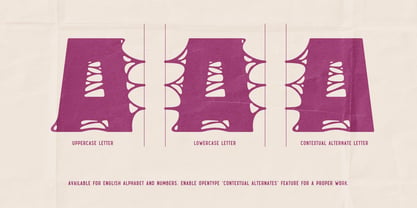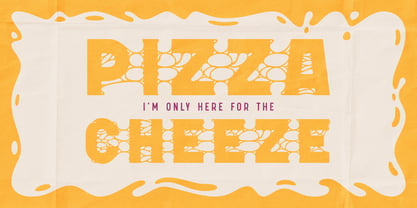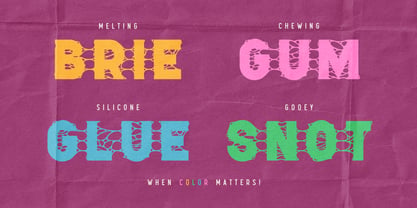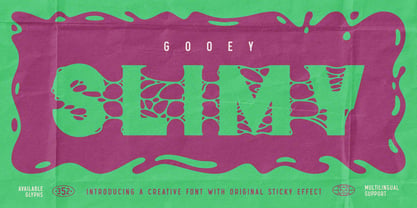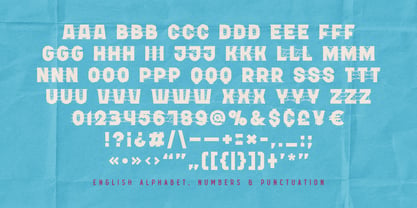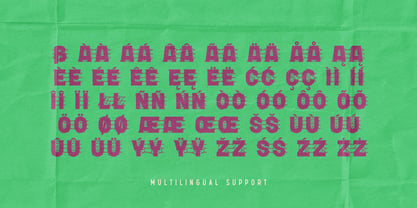
Gooey Slimy
by Gleb Guralnyk
The Gooey Slimy Font Family was designed by Gleb Guralnyk and published by Gleb Guralnyk. Gooey Slimy contains 1 styles. More about this family
Introducing Gooey Slimy, a creative display font featuring an original sticky effect. Its connected, gooey letterforms make it the perfect choice for funny advertisements and unique lettering designs.
Gooey Slimy includes a set of 352 characters, allowing you to create a seamless effect using OpenType features like contextual and stylistic alternates. Please note that the right-side terminal shapes are only available for the English alphabet and numbers. Standard multilingual character support is also included.
Designers: Gleb Guralnyk
Foundry: Gleb Guralnyk
A lot of my fonts inherits vintage graphic styles but nevertheless I don't like to stick to one theme for a long time. That's why I'm trying to create fonts in different styles and from different eras, from old gothic calligraphic to modern handwritten scripts, from medieval antique to minimalist sans-serif typefaces. It's always interesting to design something new, and expand my skills in novel font design directions.